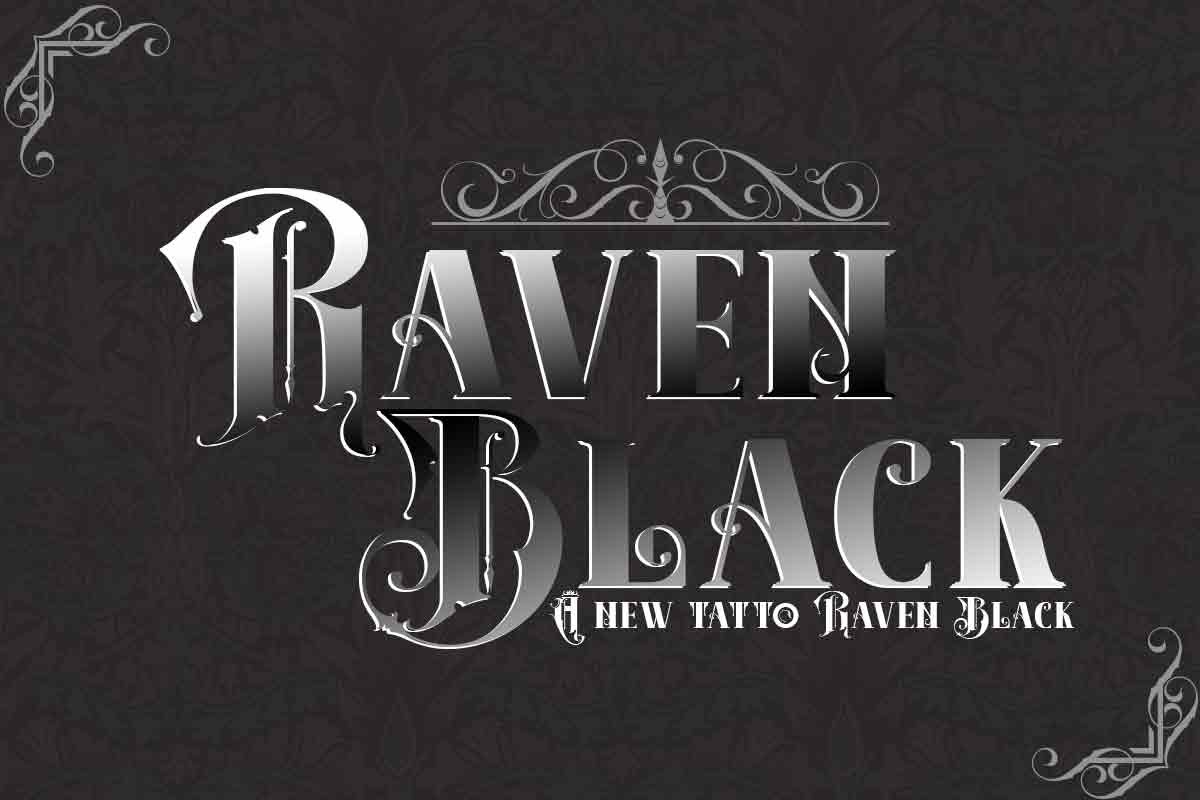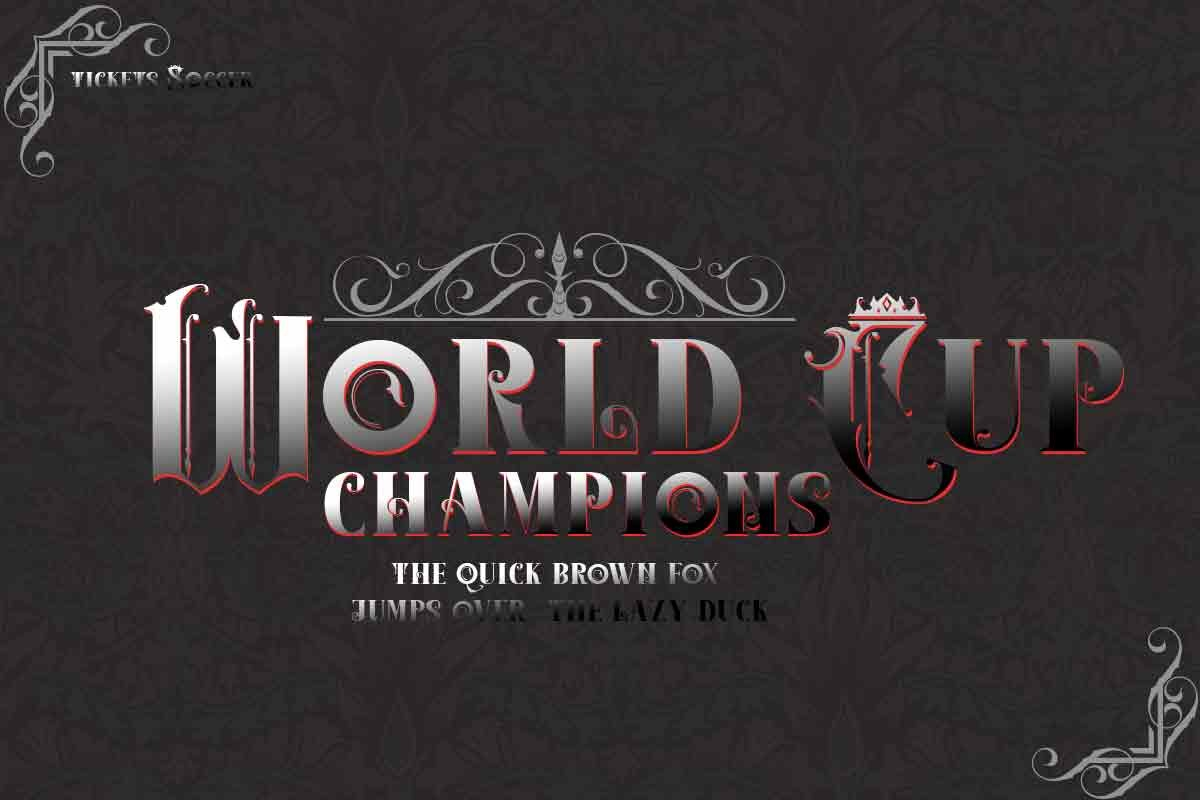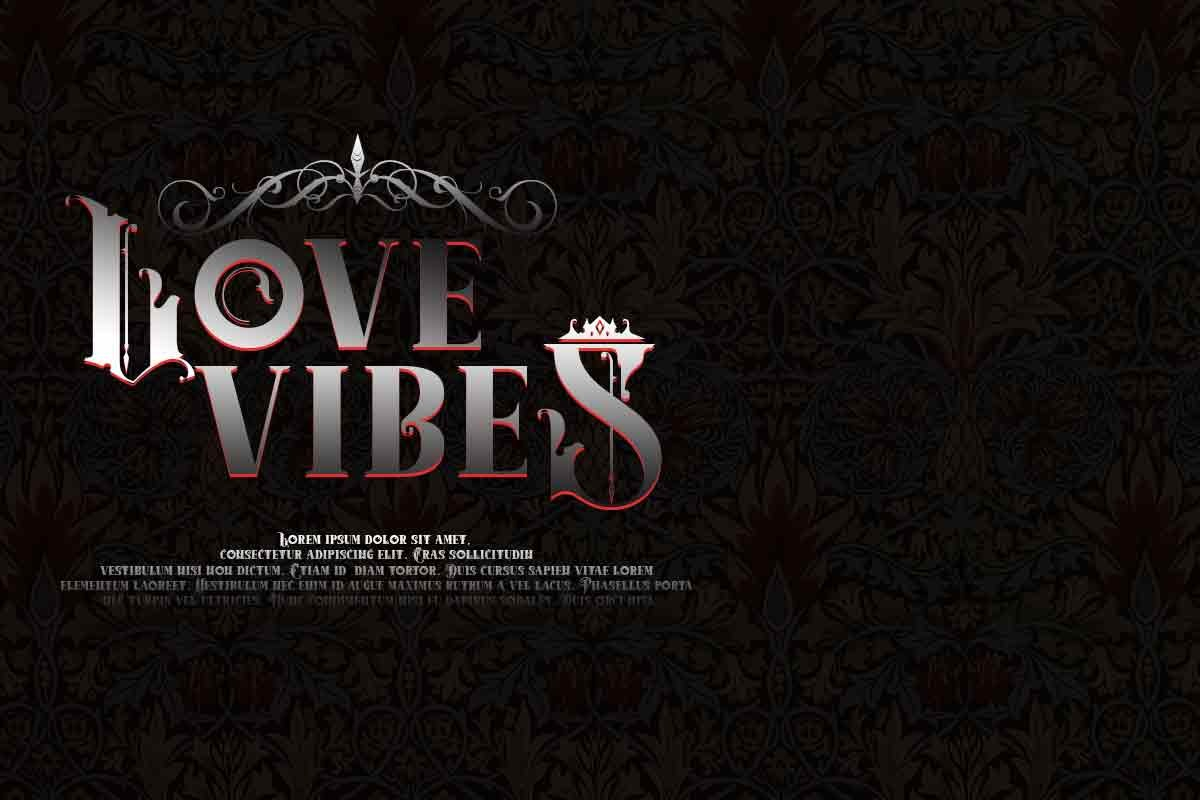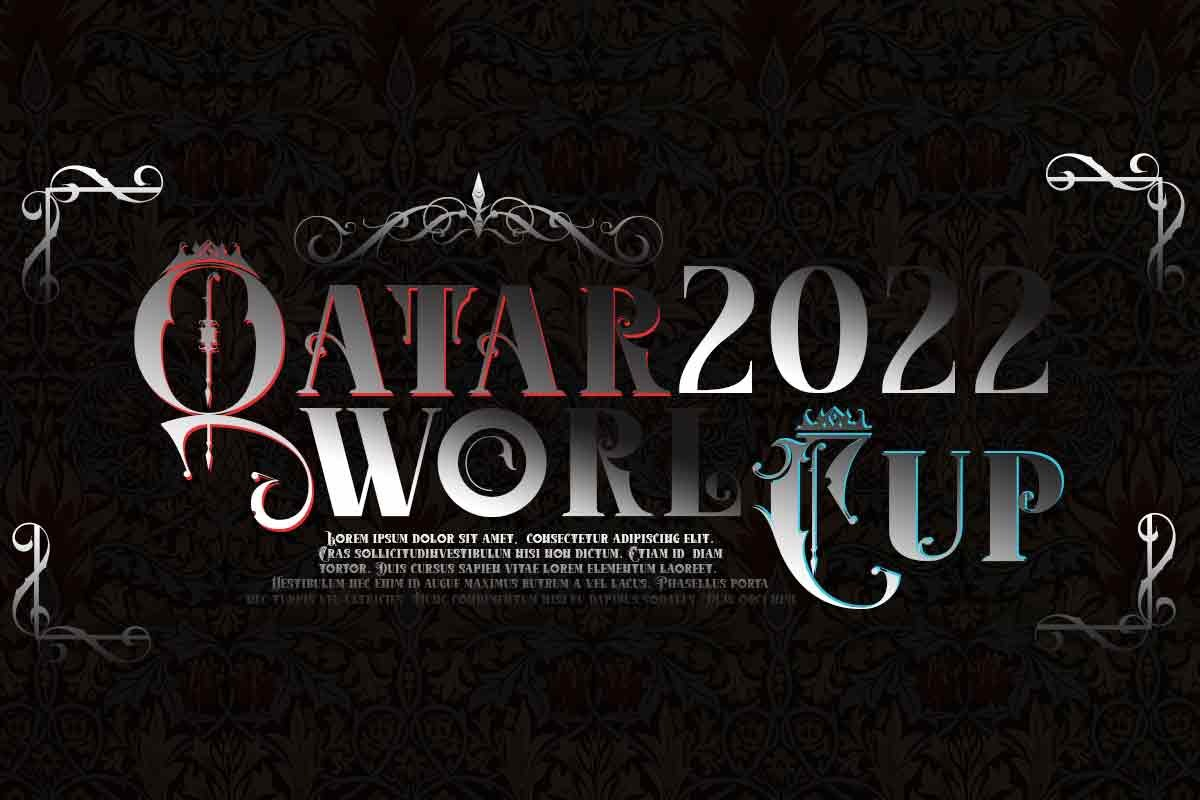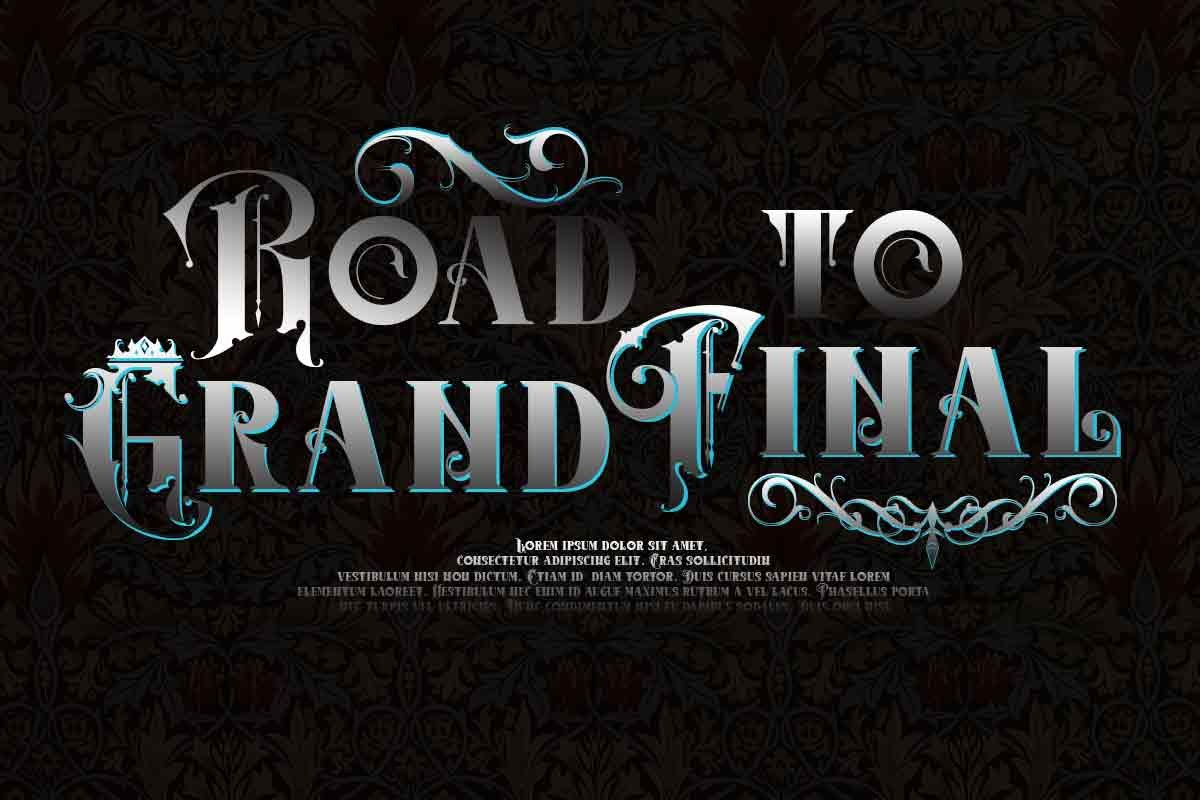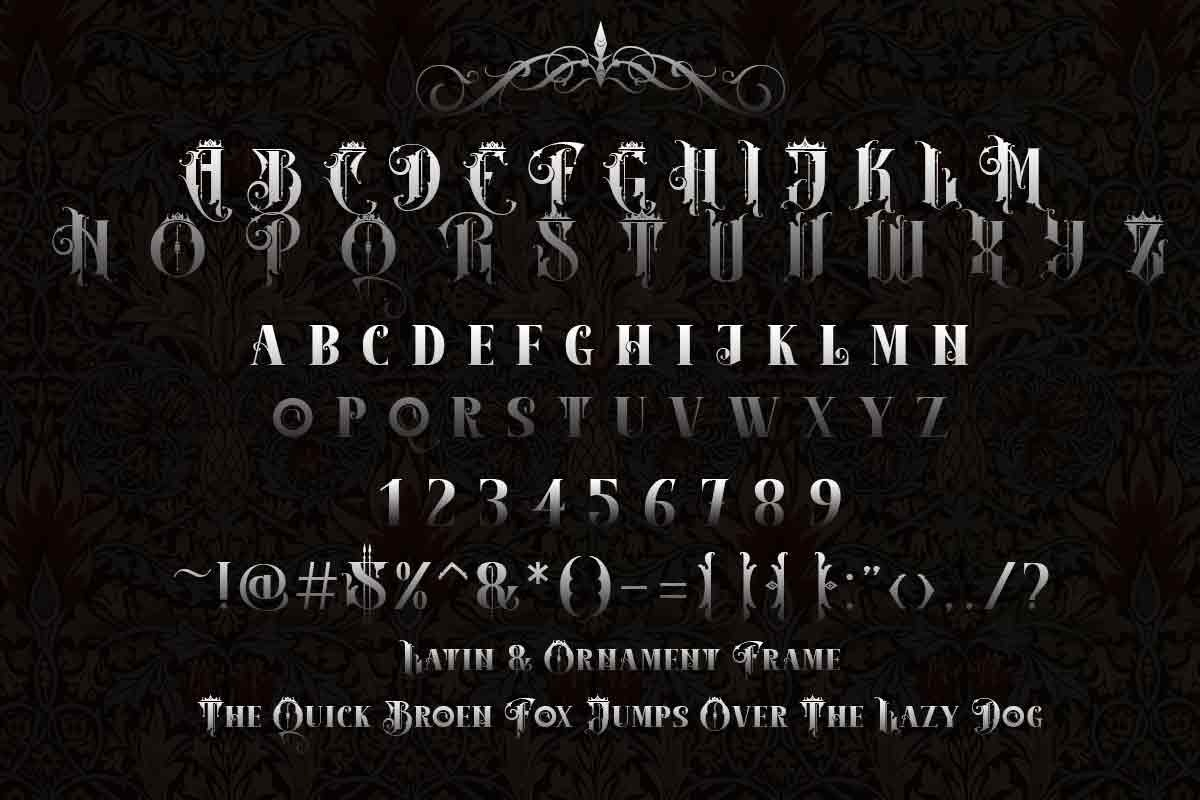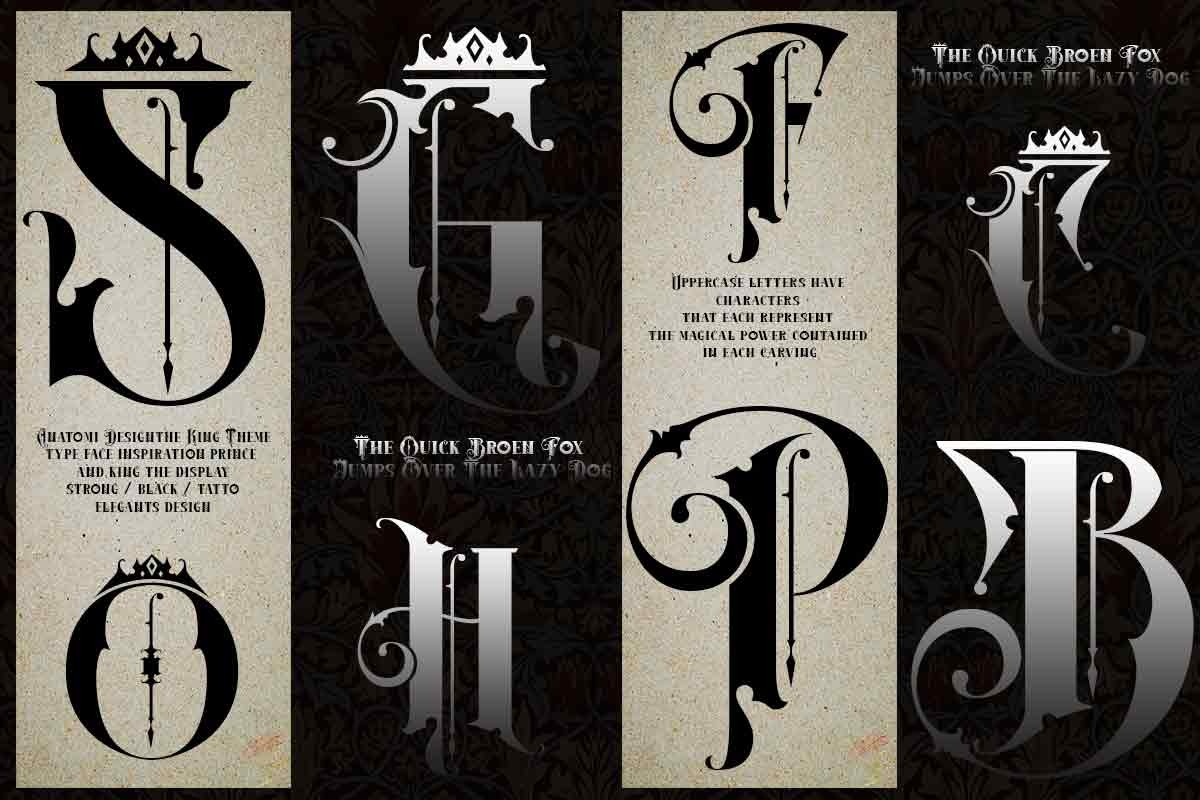
Raven Black Font
About Raven Black Font
Raven Black is a royal-themed tattoo font with a charming and classic carved shape. Modern and luxurious, this blackletter font will impress and captivate any audience. Add it confidently to your creative projects and you will love the results!